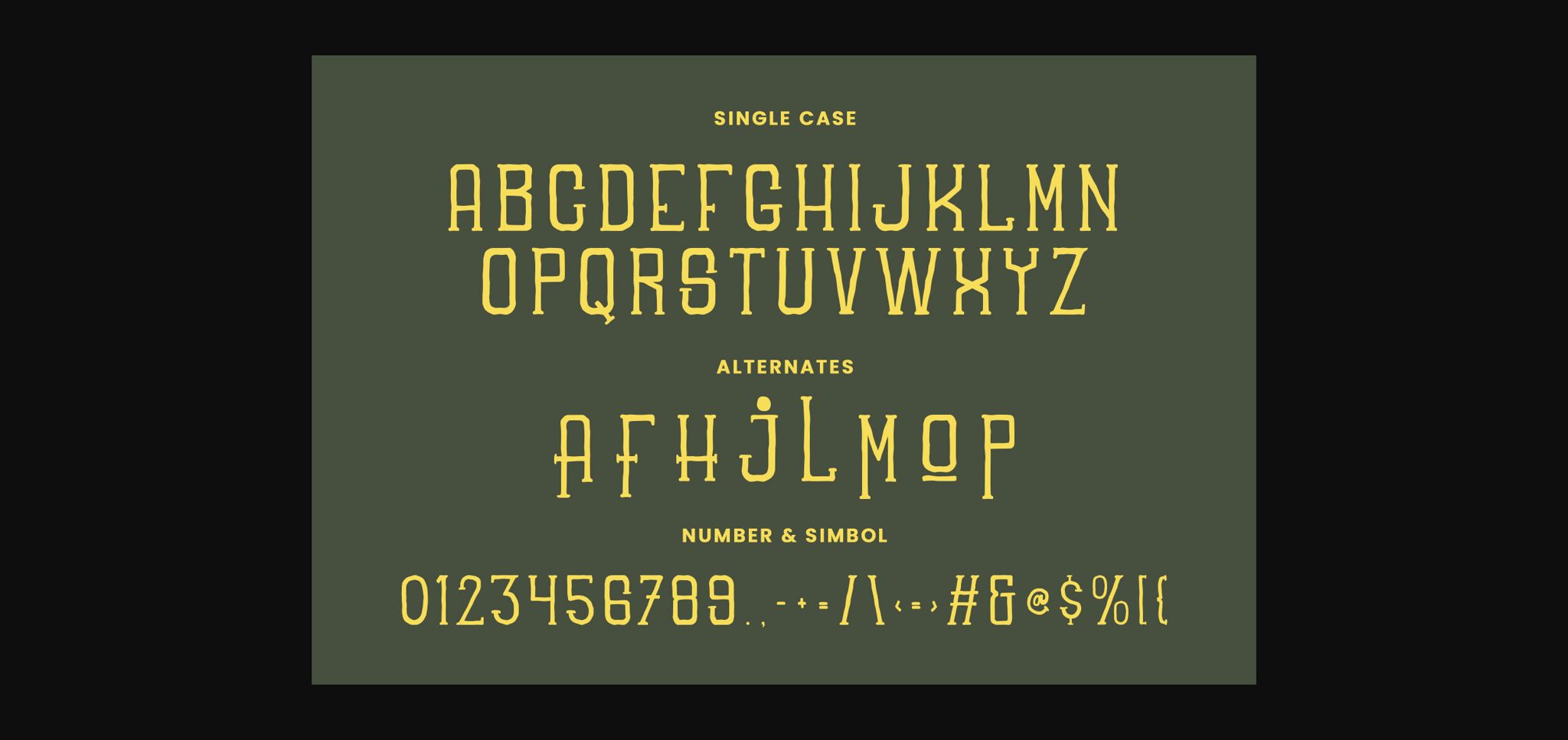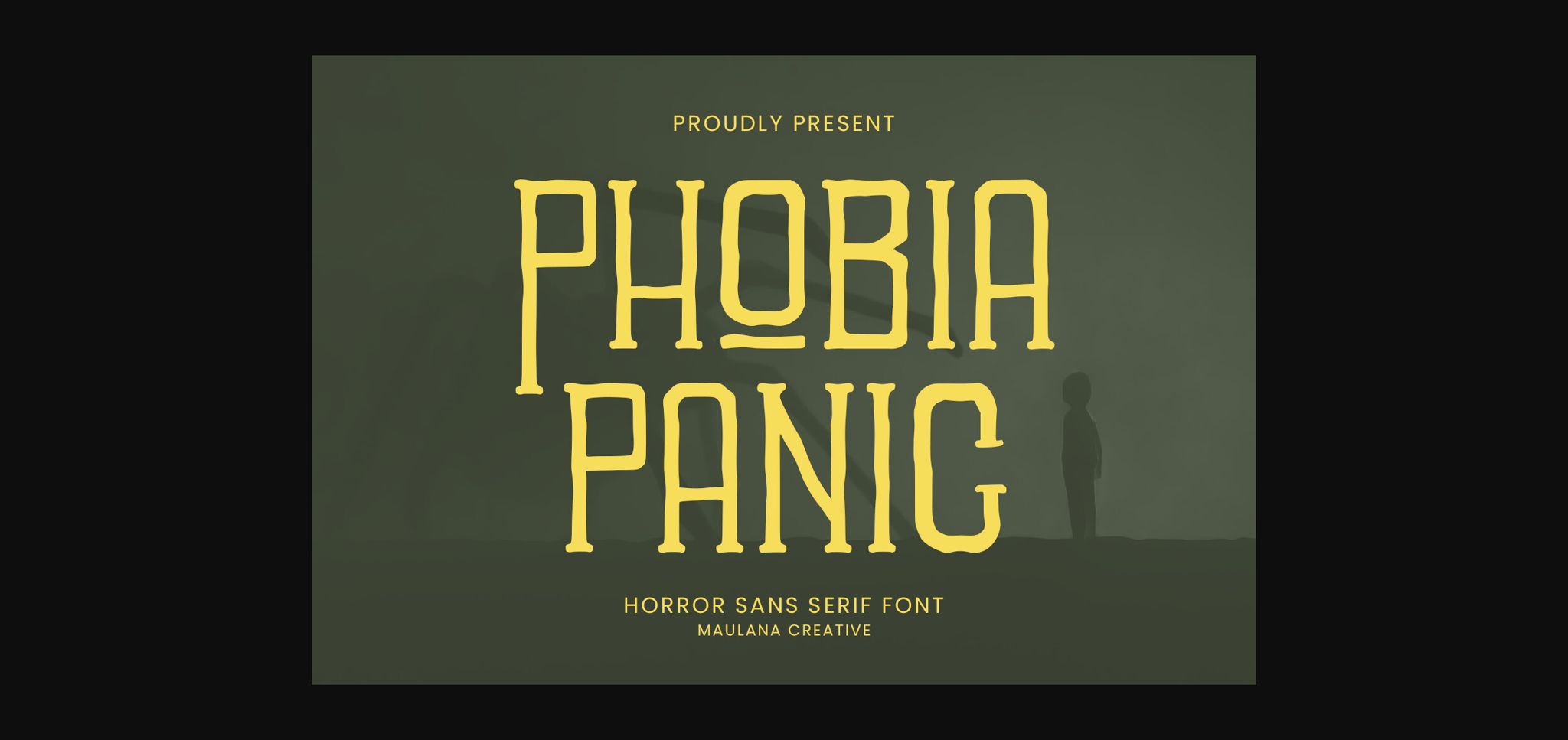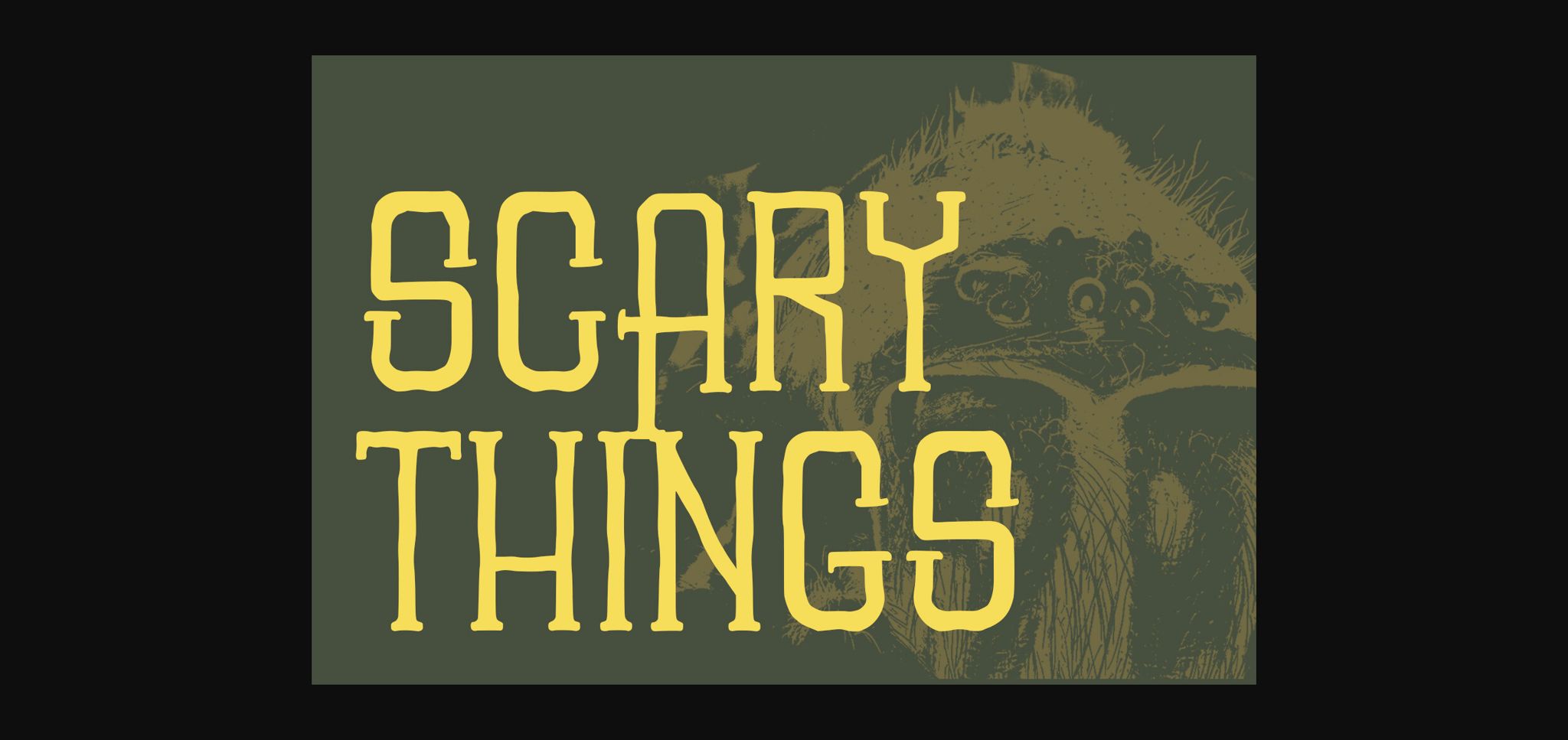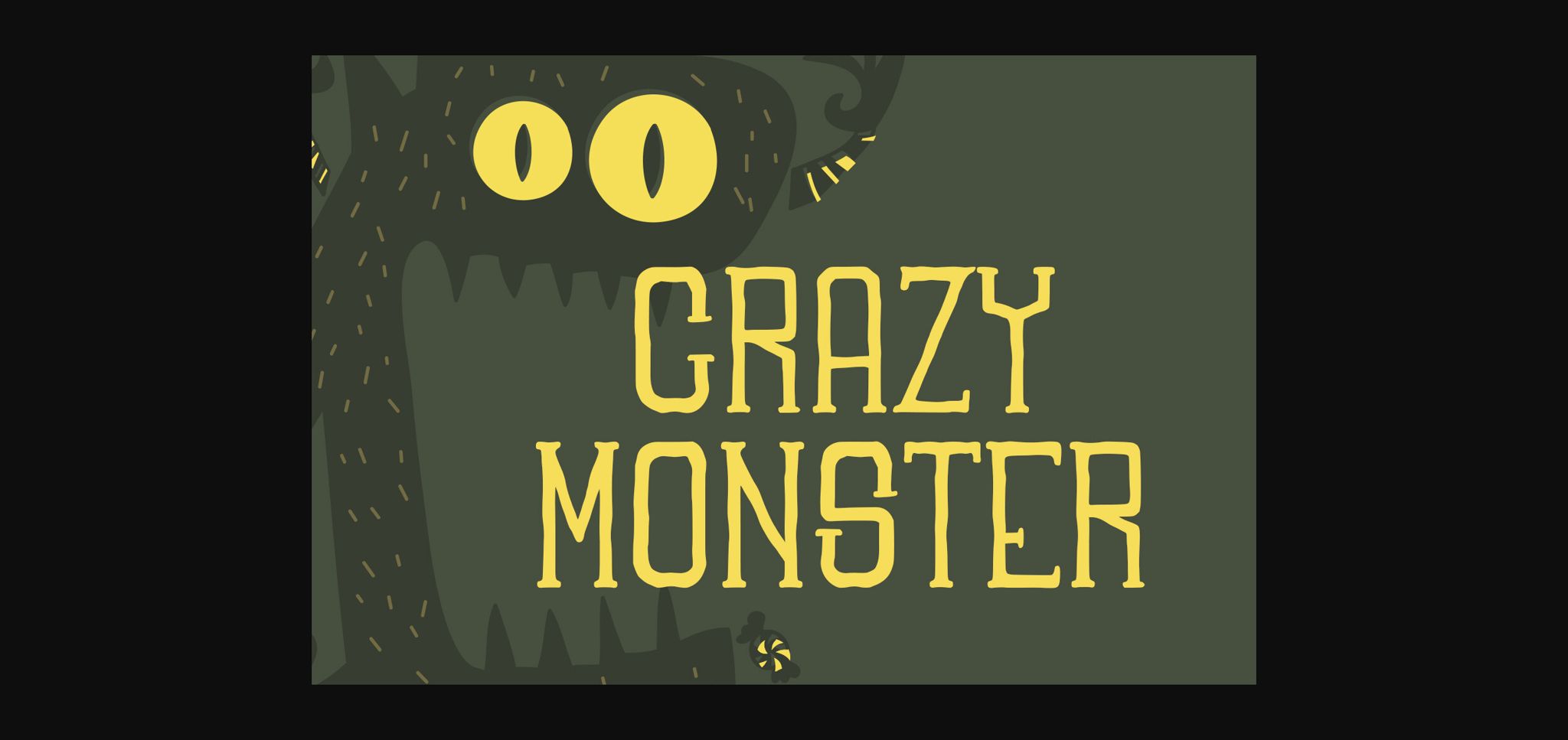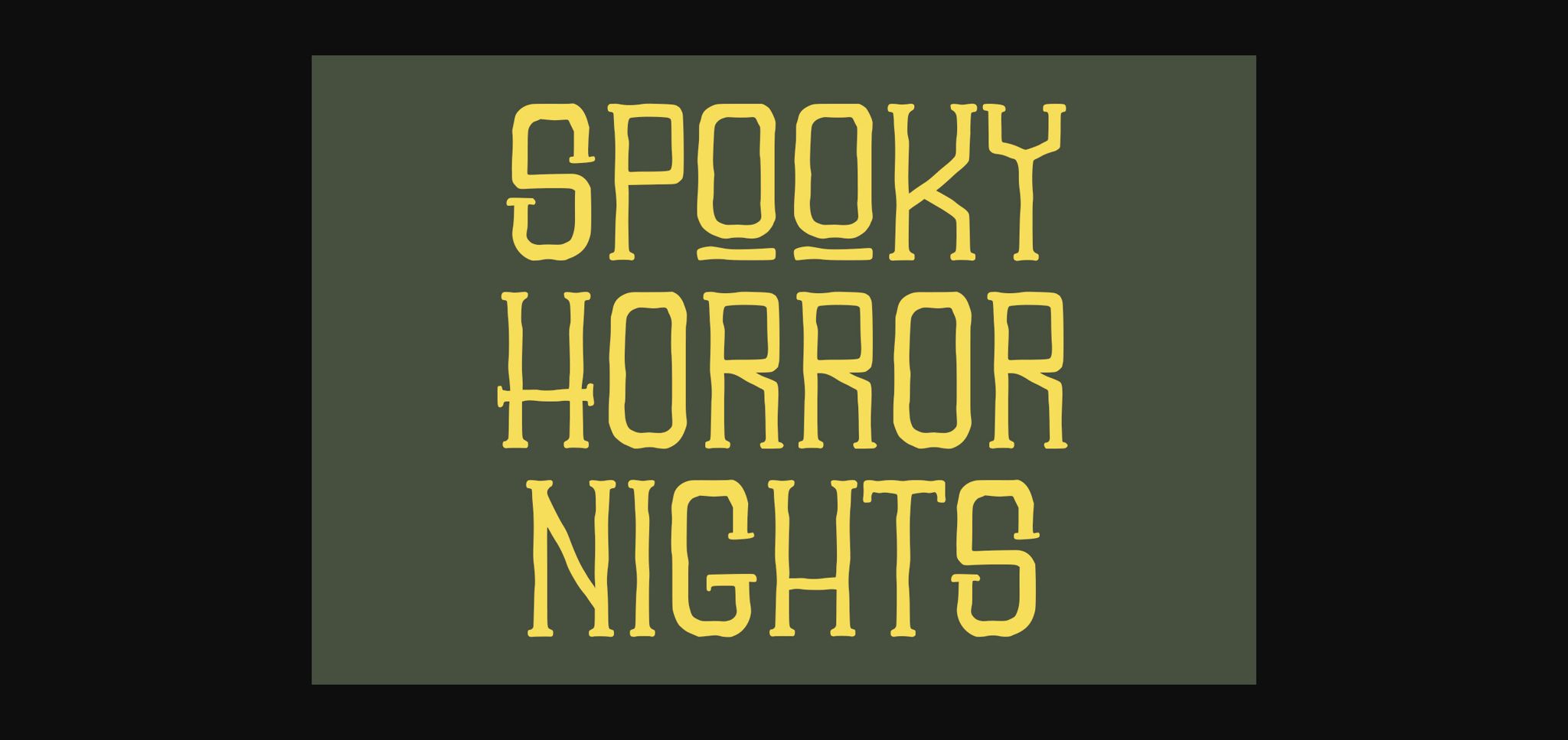
About Phobia Panic Font
Phobia Panic horror sans serif font. Bold stroke, fun character with a bit of ligatures and alternates. This font is good for logo design, Social media, Movie Titles, Books Titles, a short text even a long text letter and good for your secondary text font with script or serif. Make a stunning work with Phobia Panic horror sans serif font.